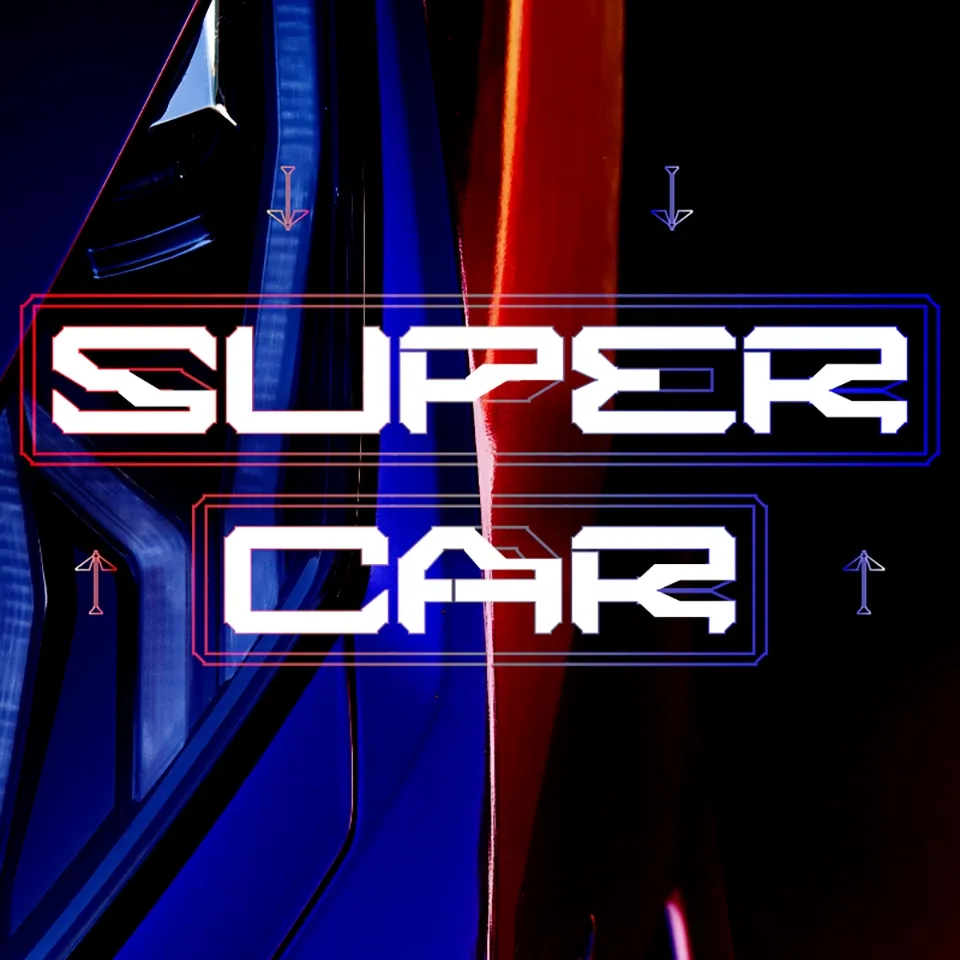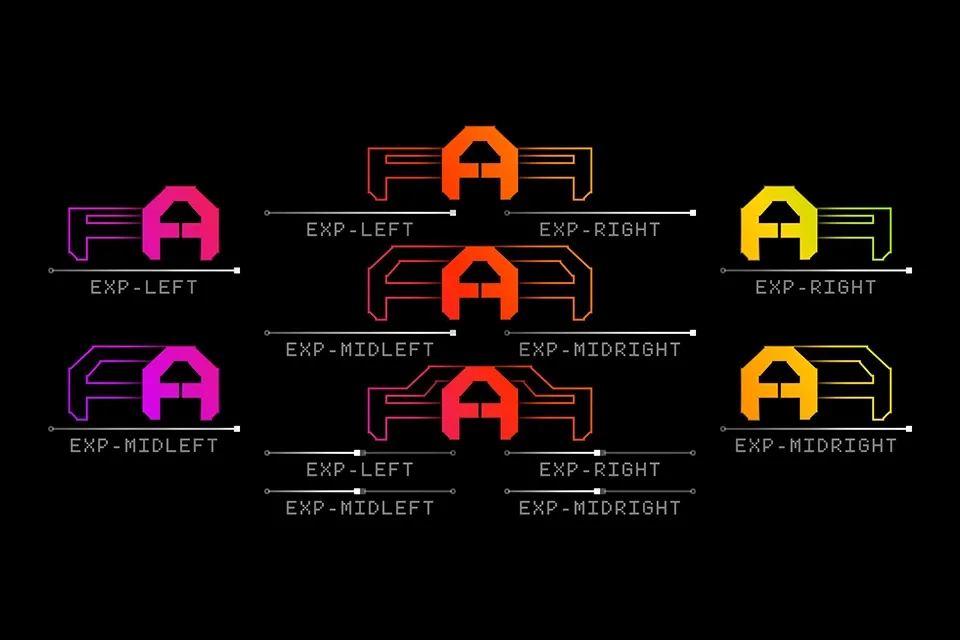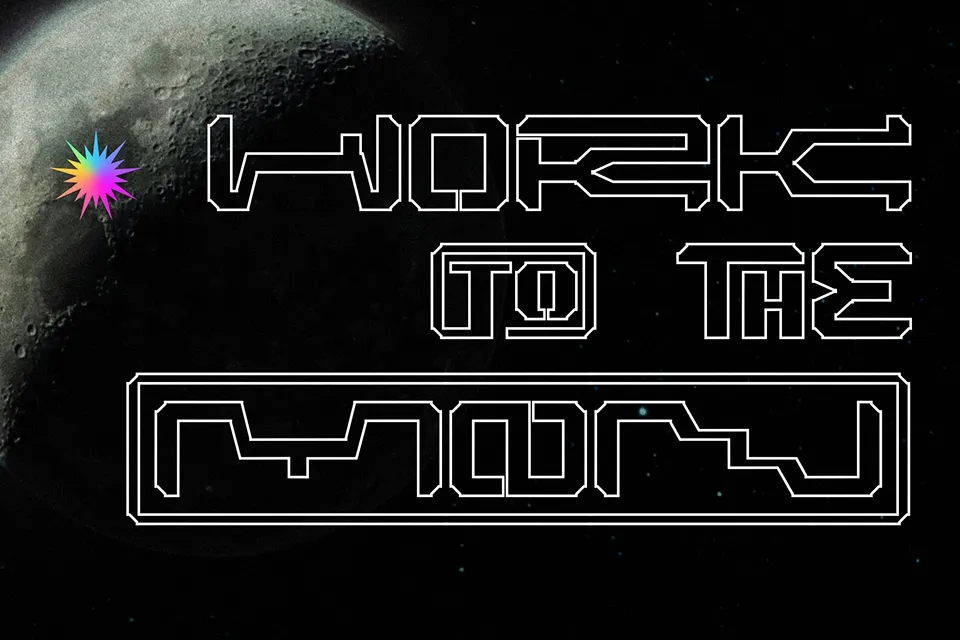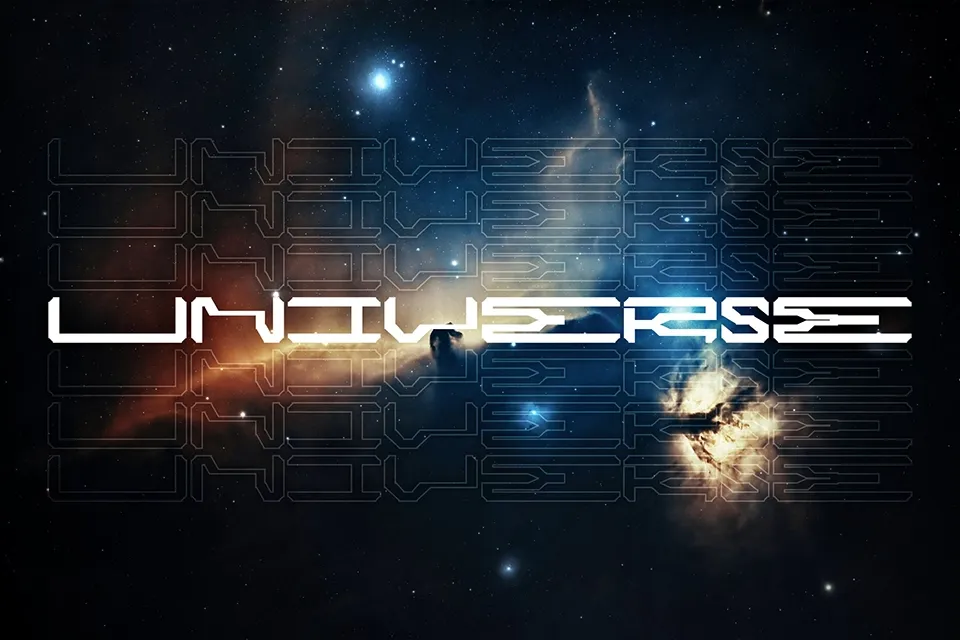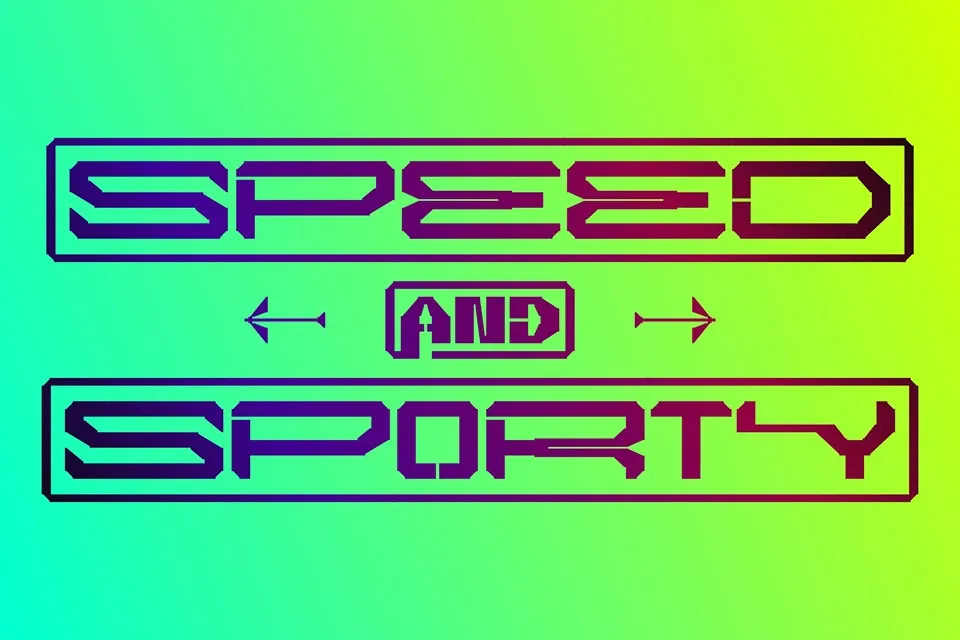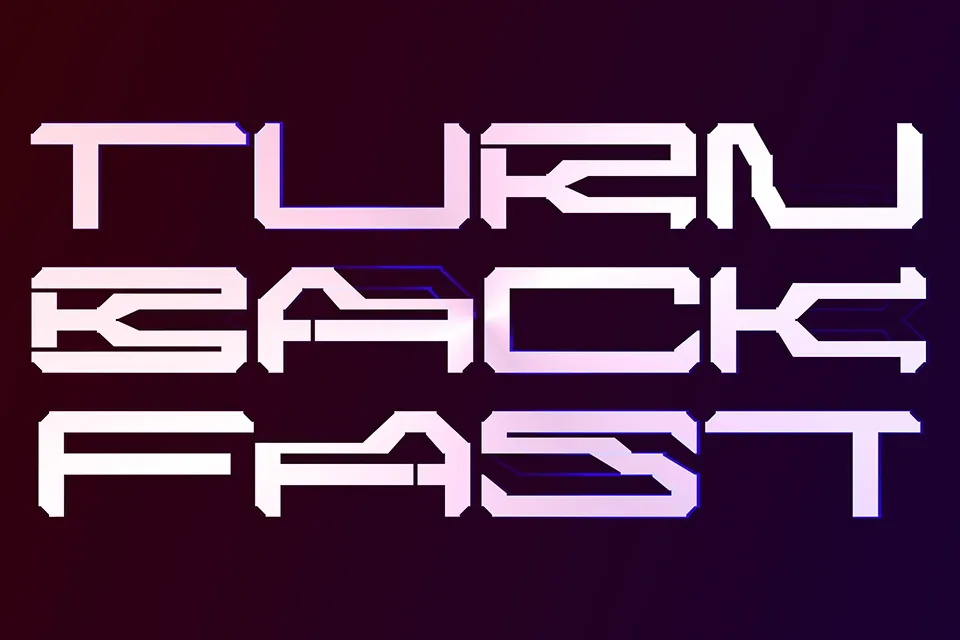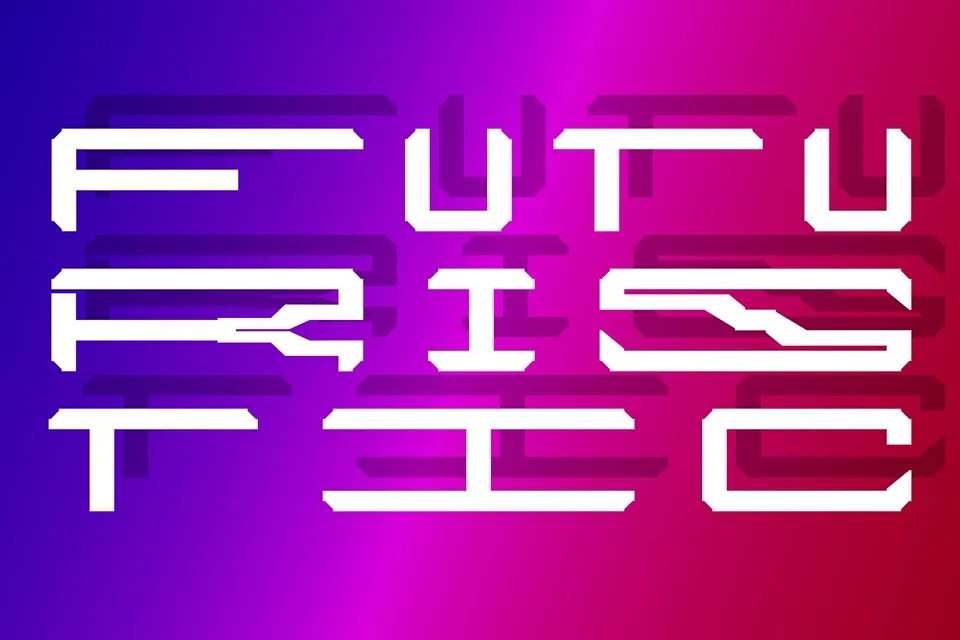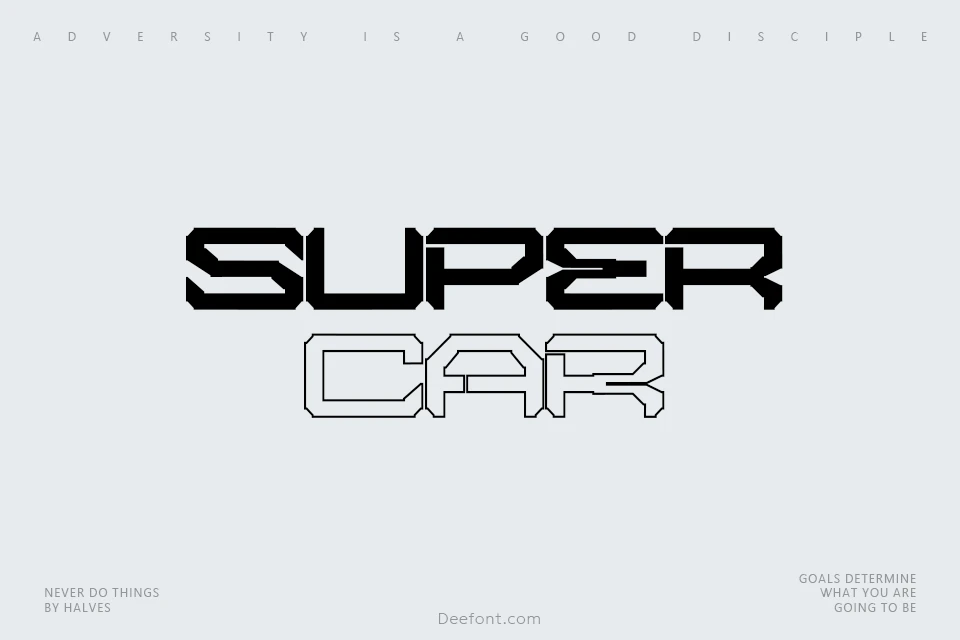
Super Car Font
Super Car Font is a modern display typeface designed to make a bold statement in any creative project. With its futuristic styles and alternative characters, it perfectly embodies speed, innovation, and high performance. Ideal for logos, labels, posters, covers, and advertising, this font delivers a striking visual impact that grabs attention in a crowd. Its sleek and dynamic design makes it versatile for projects with automotive or technology themes. Whether you’re crafting branding materials or bold headlines, Super Car Font adds a sense of energy and sophistication, making it the ultimate choice for designs that demand a cutting-edge aesthetic.